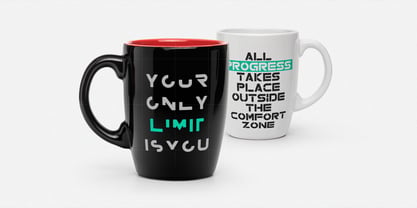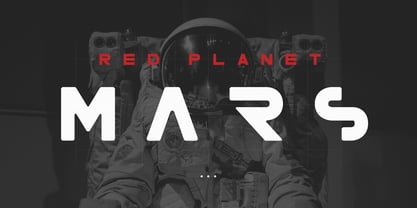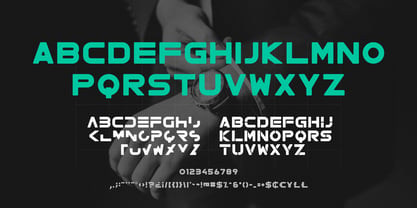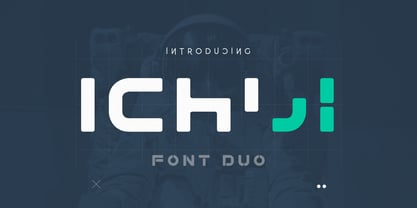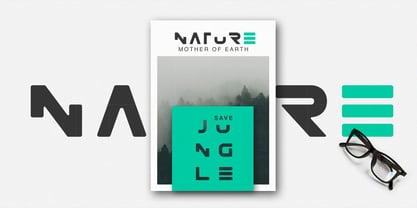
Ichiji
by Factory738
The Ichiji Font Family was designed by Wahyu Rahmawan and published by Factory738. Ichiji contains 2 styles and family package options. More about this family
Ichiji: A Structural Modern Font Duo
Ichiji is a clean, strong, and modern font duo engineered for structural clarity and futuristic impact. Drawing inspiration from architectural minimalism and space-age aesthetics, Ichiji offers a balanced, confident tone that fits seamlessly into high-performance design systems.
At FactoryType, we believe that even the most technical and modular designs should feel purposeful and sincere. Ichiji is more than just a typeface; it is a dependable tool for creators who need a cutting-edge visual voice that remains sophisticated and readable. Whether you are developing modern logotypes, tech-focused branding, or high-impact display systems, Ichiji provides the refined strength required for professional-grade results.
This duo system is meticulously crafted to ensure that both styles complement each other perfectly, offering designers an effortless way to create contrast and hierarchy within a single, cohesive family.
Main Features:
• Font Duo System: Two distinct yet harmonious styles designed for seamless typographic pairing.
• Aesthetic Focus: Strong geometric construction with refined, modern stenciled-inspired forms.
• Technical Excellence: Engineered for clarity across digital interfaces and large-scale print.
• Ideal For: Tech branding, corporate identity, aerospace/gaming visuals, and modern apparel design.